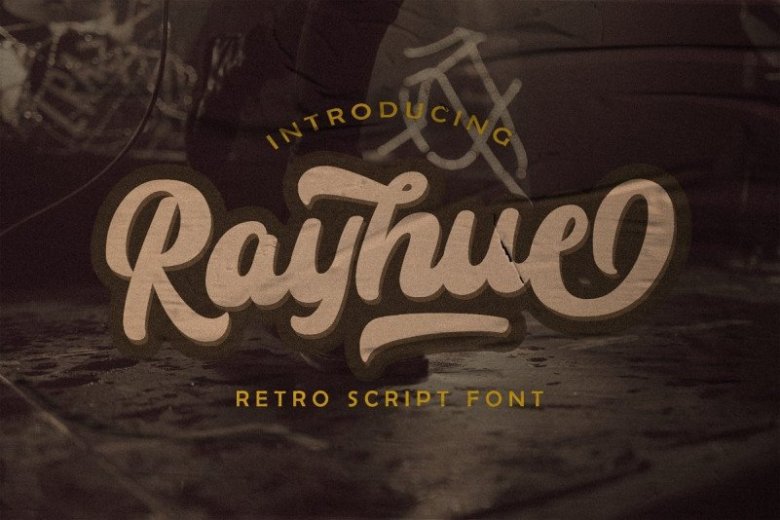
Rayhue – Retro Script Font
Hi designer! Befonts introducing new vintage script font. Rayhue Font designed and shared by StringLabs. Inspired by Retro style and combination with Hand Lettering style.
Befonts hope this can make inspire you from your work. Rayhue Retro Script is a Retro bold script with Vintage style. unique design taste and combine with classic retro style of the 80s, trendy, vintage, and sporty.
Rayhue is perfect for retro lovers, besides this font is also perfect if used for brands such as: barbershop, motorcycle club, clothing, coffee shop, shoe brands, vapor shop, hipster and many more.